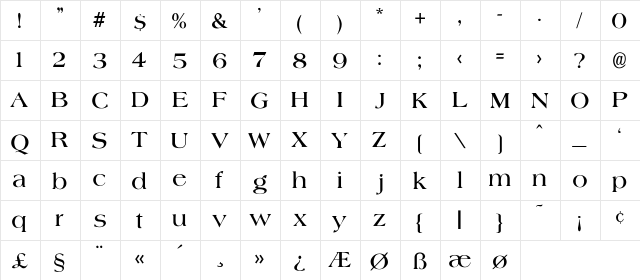
Cooledge-Bold Bold
Design Context for Cooledge-Bold Typeface
Cooledge-Bold takes a measured approach to typography — its balanced proportions and neutral character make it a reliable workhorse for both digital and print work. Its bold stroke weight gives it real presence on the page.